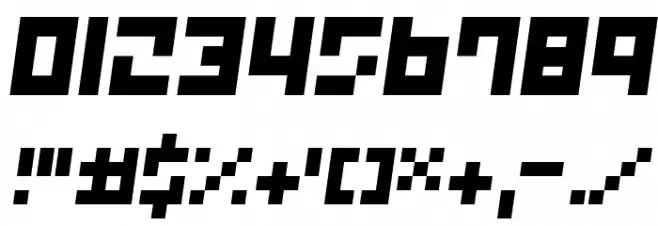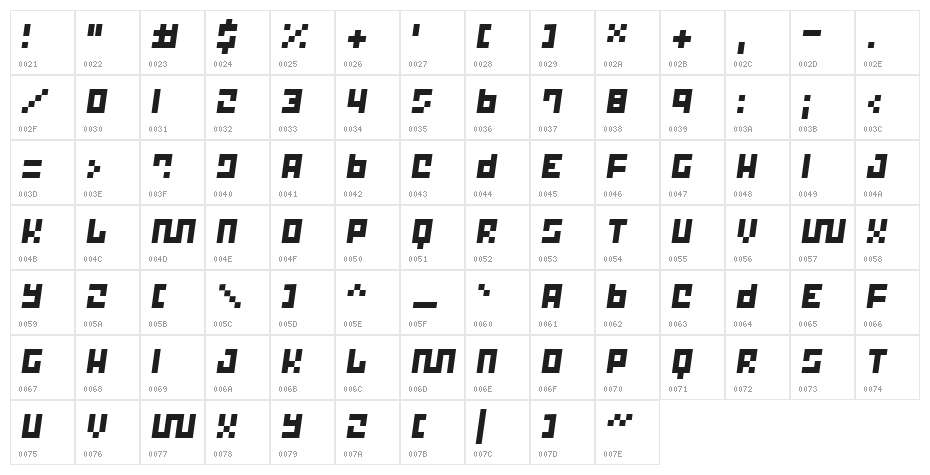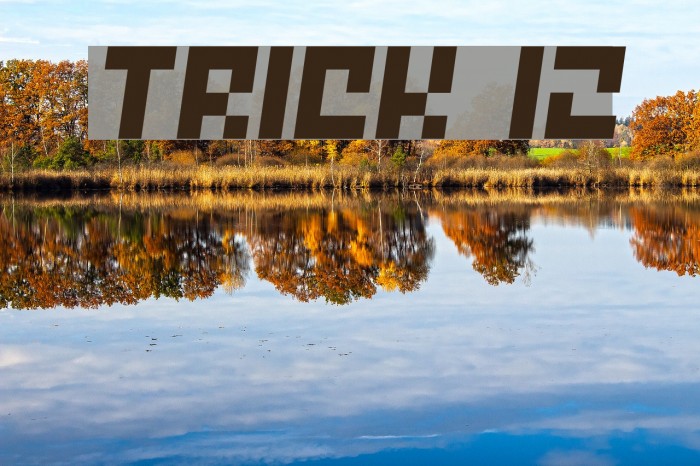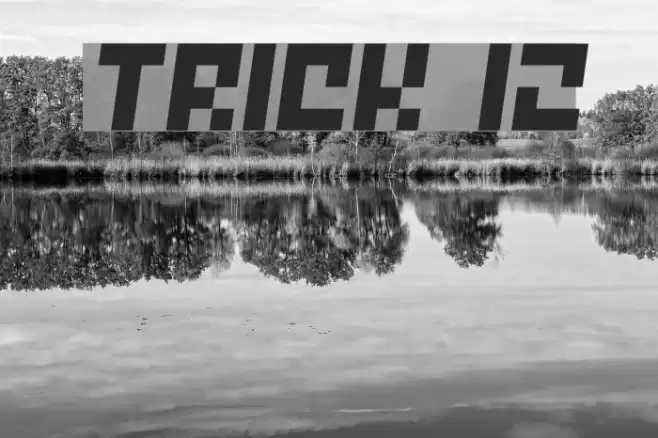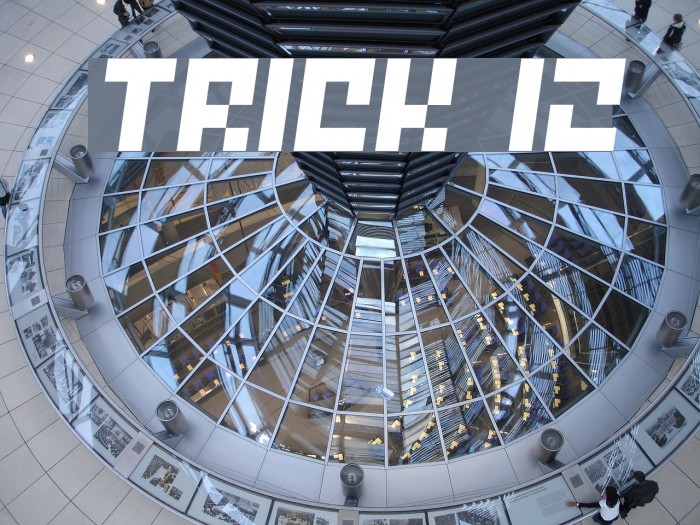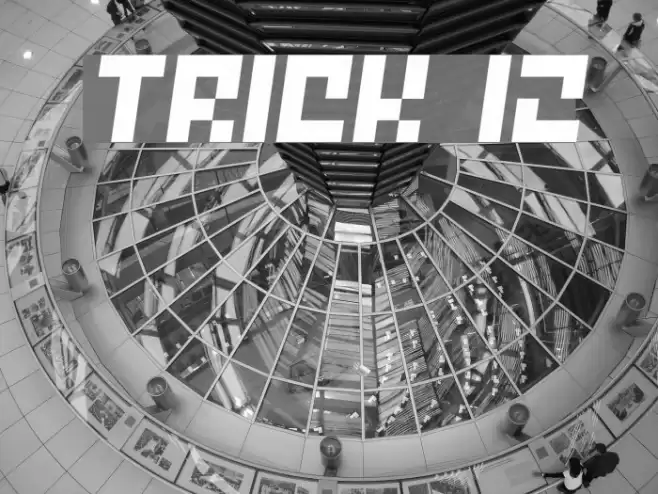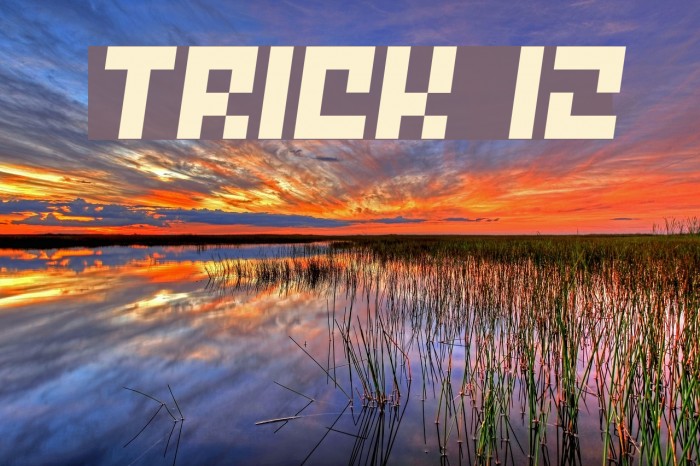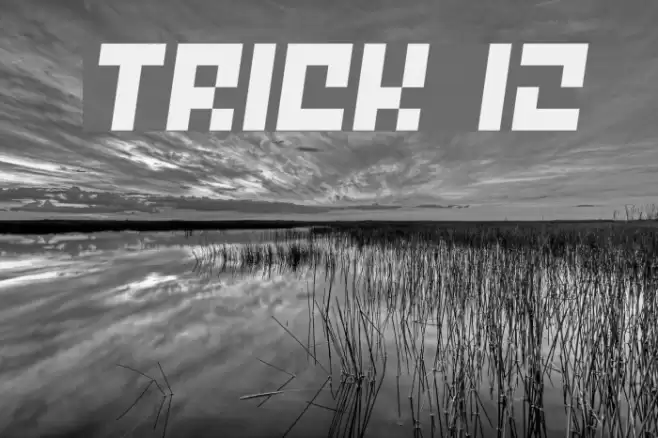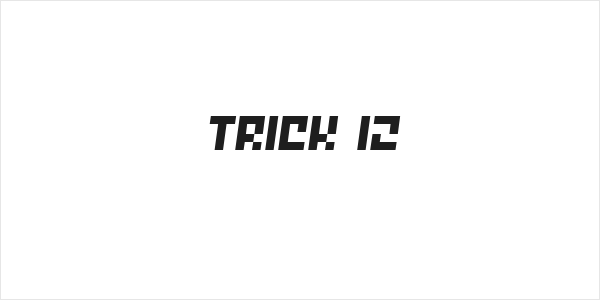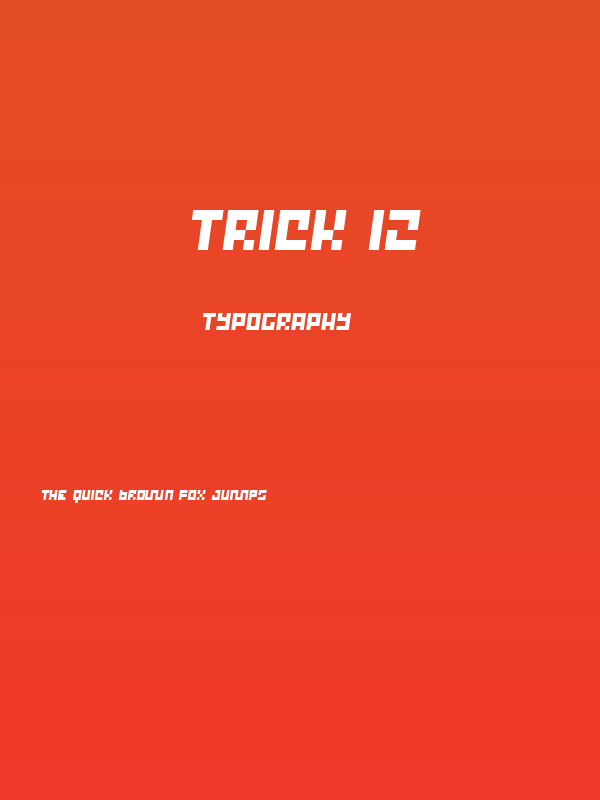
Trick 12 Font
Trick 12 Description
This font features a bold, geometric style with sharp angles and a blocky appearance. The characters are uniformly thick, creating a strong visual impact. The uppercase and lowercase letters share a similar structure, enhancing the font's cohesive look. Numbers and special characters maintain the same bold and angular design, ensuring consistency across all glyphs. The font's modern and futuristic aesthetic makes it suitable for projects that require a striking and contemporary feel. Its distinct style is ideal for attention-grabbing headlines or branding materials that need to stand out.
| Proposed Projects | Ideal for futuristic branding, tech-related projects, video game titles, and bold advertising campaigns. |